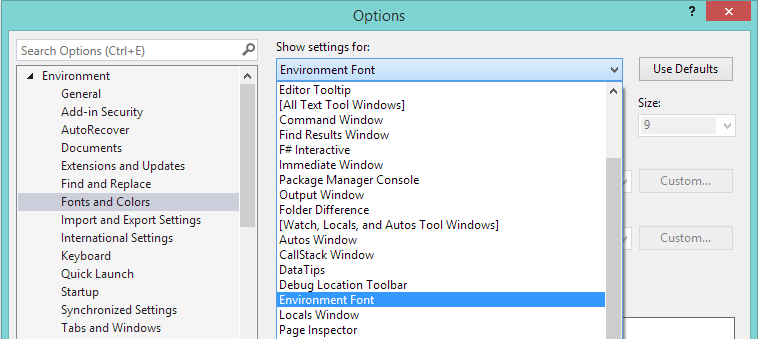
The environment font
All fonts within Visual Studio must be exposed to the user for customization. This is primarily done through the Fonts and Colors page in the Tools > Options dialog. The three main categories of font settings are:
Environment font - the primary font for the IDE (integrated development environment), used for all interface elements, including dialogs, menus, tool windows, and document windows. By default, the environment font is tied to a system font that appears as 9 pt Segoe UI in current versions of Windows. Using one font for all interface elements helps ensure a consistent font appearance throughout the IDE.
Text editor - elements that surface in code and other text-based editors can be customized in the Text Editor page in Tools > Options.
Specific collections - designer windows that offer user customization of their interface elements may expose fonts specific to their design surface in their own settings page in Tools > Options.
Editor font customization and resizing
Users often will enlarge or zoom the size and/or color of text in the editor according to their preference, independent of the general user interface. Because the environment font is used on elements that might appear within or as part of an editor/designer, it is important to note the expected behavior when one of these font classifications is changed.
When creating UI elements that appear in the editor but are not part of the content, it is important to use the environment font and not the text font so that elements resize in a predictable way.
For code text in the editor, resize with the code text font setting and respond to the editor text's zoom level.
All other elements of the interface should be tied to the environment font setting and respond to any global changes in the environment. This includes (but is not limited to):
Text in context menus
Text in an editor adornment, like light bulb menu text, quick find editor pane, and navigate to pane
Label text in dialog boxes, like Find in Files or Refactor
Accessing the environment font
In Native or WinForms code, the environment font can be accessed by calling the method IUIHostLocale::GetDialogFont after querying the interface from the SID_SUIHostLocale service.
For Windows Presentation Foundation (WPF), derive your dialog window class from the shell's DialogWindow class instead of WPF's Window class.
In XAML, the code looks like this:
<ui:DialogWindow
x:Class"MyNameSpace.MyWindow"
xmlns="http://schemas.microsoft.com/winfx/2006/xaml/presentation"
xmlns:s="http://schemas.microsoft.com/winfx/2006/xaml"
xmlns:ui="clr-namespace:Microsoft.VisualStudio.PlatformUI;assembly=Microsoft.VisualStudio.Shell.11.0"
ShowInTaskbar="False"
WindowStartupLocation="CenterOwner"
Title="My Dialog">
</ui:DialogWindow>
Code behind:
internal partial class WebConfigModificationWindow : DialogWindow
{
}
(Replace Microsoft.VisualStudio.Shell.11.0 with the current version of the MPF dll.)
To display the dialog, call "ShowModal()" on the class over ShowDialog(). ShowModal() sets the correct modal state in the shell, ensures the dialog is centered in the parent window, and so on.
The code is as follows:
MyWindow window = new MyWindow();
window.ShowModal()
ShowModal returns a bool? (nullable Boolean) with the DialogResult, which can be used if needed. The return value is true if the dialog was closed with OK.
If you need to display some WPF UI that is not a dialog and is hosted in its own HwndSource, such as a popup window or a WPF child window of a Win32/WinForms parent window, you will need to set the FontFamily and FontSize on the root element of the WPF element. (The shell sets the properties on the main window, but they will not be inherited past a HWND). The shell provides resources to which the properties can be bound, like this:
<Setter Property="FontFamily" Value="{DynamicResource VsFont.EnvironmentFontFamily}" />
<Setter Property="FontSize" Value="{DynamicResource VsFont.EnvironmentFontSize}" />
Formatting (scaling/bolding) reference
Some dialogs require particular text to be bold or a size other than the environment font. Previously, fonts larger than the environment font were coded as "environment font +2" or similar. Using the provided code snippets will support high-DPI monitors and ensure that display text always appears at the correct size and weight (like Light or Semilight).
The minimum space around a heading should be 50% of the capital character height. Less space may be used when a heading is accompanied by a rule or other tight-fitting element.
Bolded environment font text should follow default line height spacing and padding.